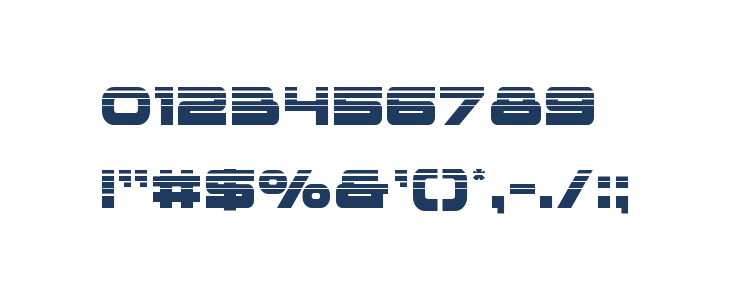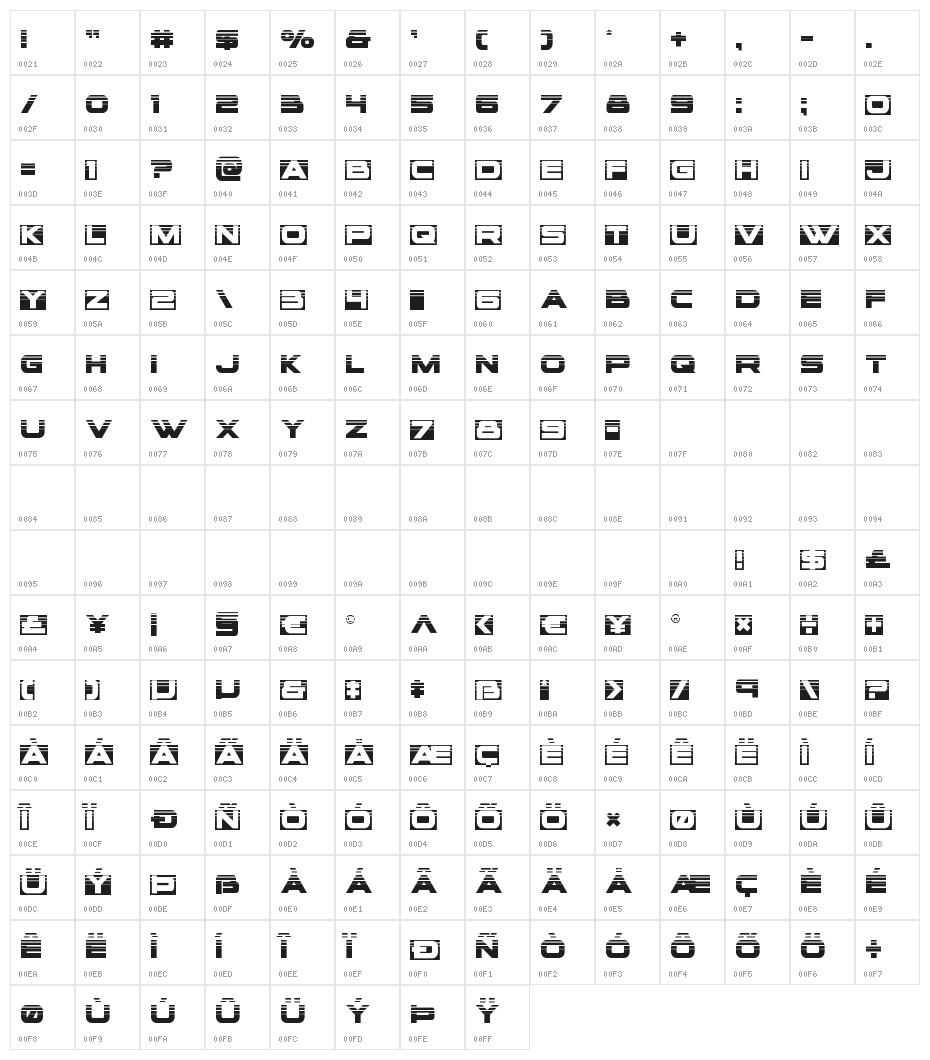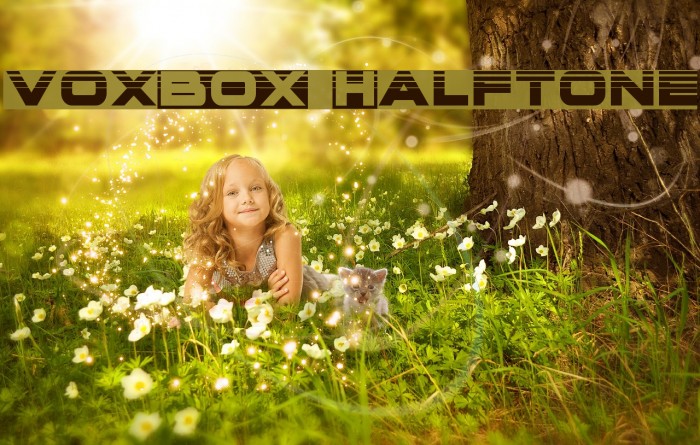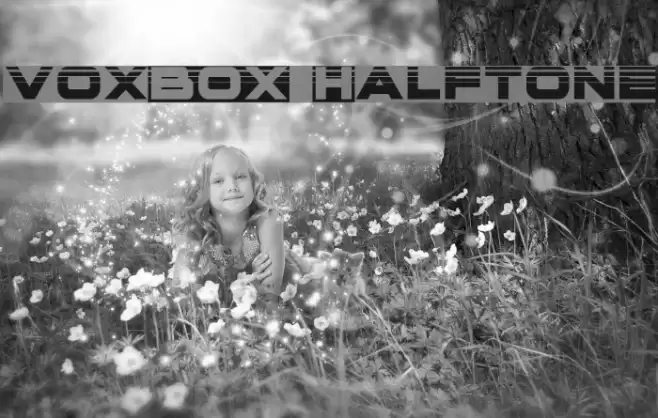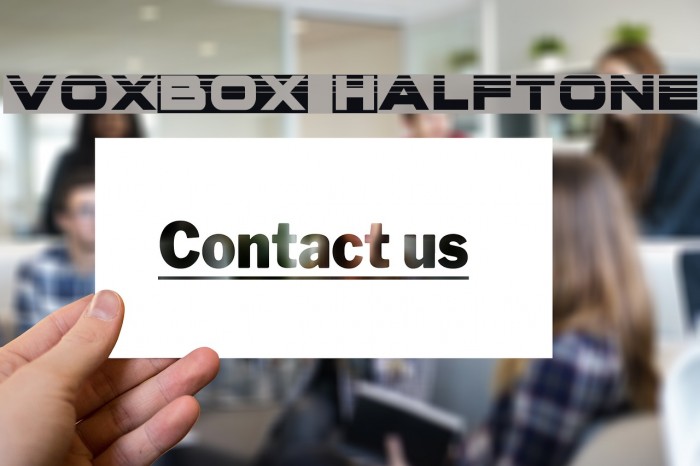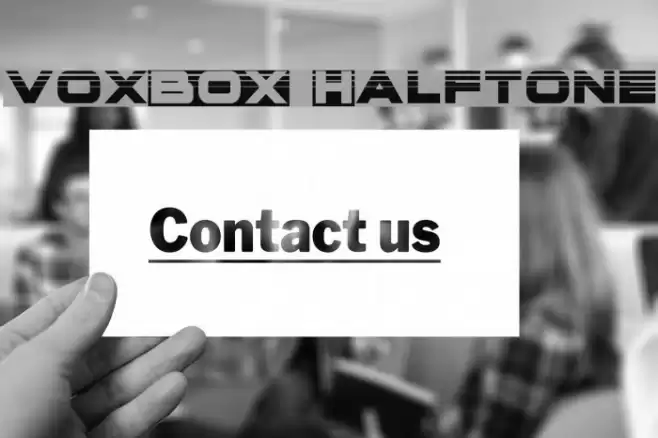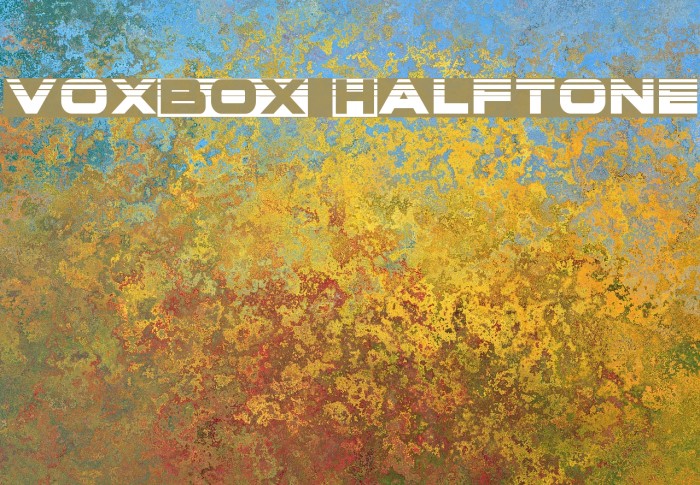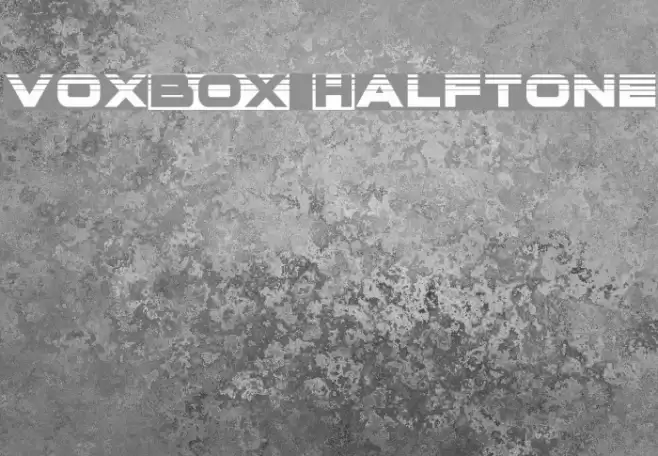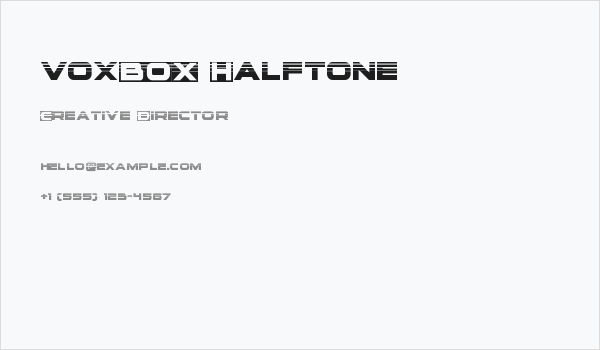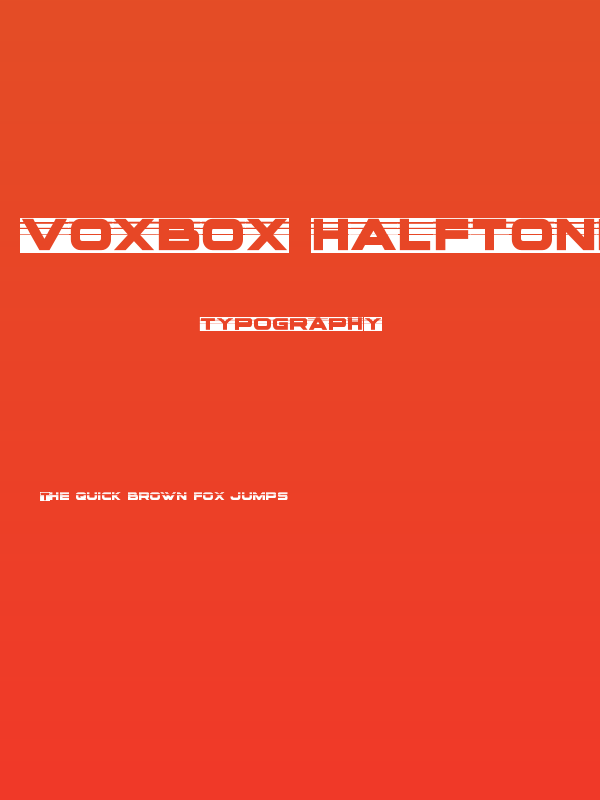
voxBOX Halftone Font
voxBOX Halftone Description
This font features a bold, geometric design with a distinct halftone effect that creates a sense of movement and depth. The characters are constructed with horizontal lines that break up the solid forms, giving it a modern and dynamic appearance. The uppercase letters are uniform in height, while the numerals and special characters maintain the same stylistic approach, ensuring consistency across all glyphs. This font's unique style makes it ideal for eye-catching designs where a futuristic or tech-inspired look is desired.
| Proposed Projects | Ideal for use in digital media, posters, album covers, and branding projects that require a futuristic or tech-inspired aesthetic. |